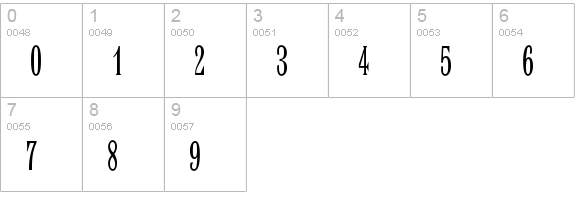
Latin Extra Condensed is a distinctive, condensed-width variant in the Latin typeface family \xE2\x80\x94 well suited to design and typography projects.
Latin Extra Condensed font is a visually striking typeface that exudes elegance and sophistication. Its condensed design allows for maximum space efficiency without compromising on legibility or style. With its sleek and modern appearance, Latin Extra Condensed is the perfect choice for projects that require a bold and impactful statement. This versatile font is suitable for a wide range of creative endeavors, including branding, editorial design, packaging, and much more. Its clean lines and sharp edges give it a contemporary edge, making it an excellent choice for both print and digital applications. What sets Latin Extra Condensed apart is not just its exceptional design, but also the fact that it is available for free download at FontsMarket.com. This means that designers, creatives, and enthusiasts alike can freely access and utilize this remarkable typeface without any limitations. Whether you are a professional designer or a hobbyist, Latin Extra Condensed offers you the opportunity to enhance your projects with its distinctive and eye-catching aesthetic. FontsMarket.com is a trusted source for high-quality fonts, and their commitment to providing free access to Latin Extra Condensed ensures that anyone can take advantage of this exceptional typeface. So why wait? Visit FontsMarket.com today and experience the beauty and versatility of Latin Extra Condensed for yourself. Elevate your designs and make a lasting impression with this stunning font that is freely available to all.